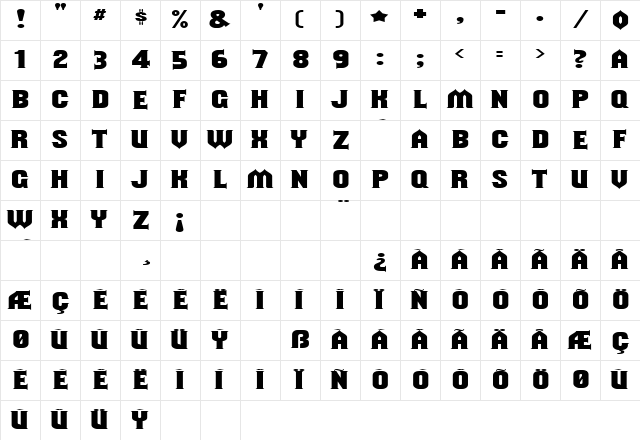
Should've Known Regular
Should've Known is a composed and adaptable typeface that performs quietly and consistently across a wide range of design contexts.